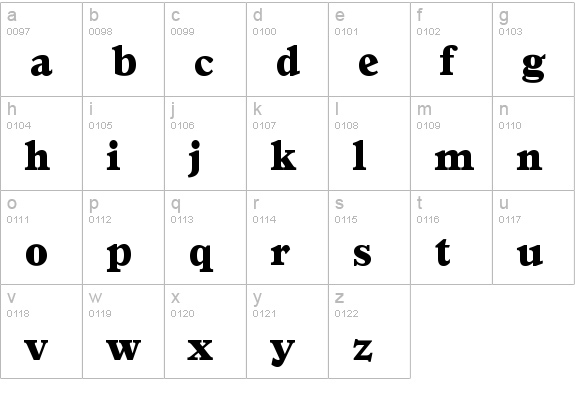
Granada-Heavy is a heavy, high-impact variant in the Granada typeface family \xE2\x80\x94 well suited to high-impact headlines, posters, and display advertising.
Granada-Heavy is a bold and striking font that commands attention with its strong presence. This versatile typeface exudes a sense of power and authority, making it perfect for headlines, posters, and other display purposes. Its thick, robust letterforms give text a bold and impactful appearance, making it ideal for projects that require a strong visual impact. What sets Granada-Heavy apart is not only its impressive design but also the fact that it is available for free download at FontsMarket.com. This means that you can easily access this high-quality font without any cost, making it a valuable addition to your font library. Whether you're a designer looking to make a statement or a business seeking a font that demands attention, Granada-Heavy is sure to deliver the impact you desire. Download this impressive font today and elevate your design projects to new heights.